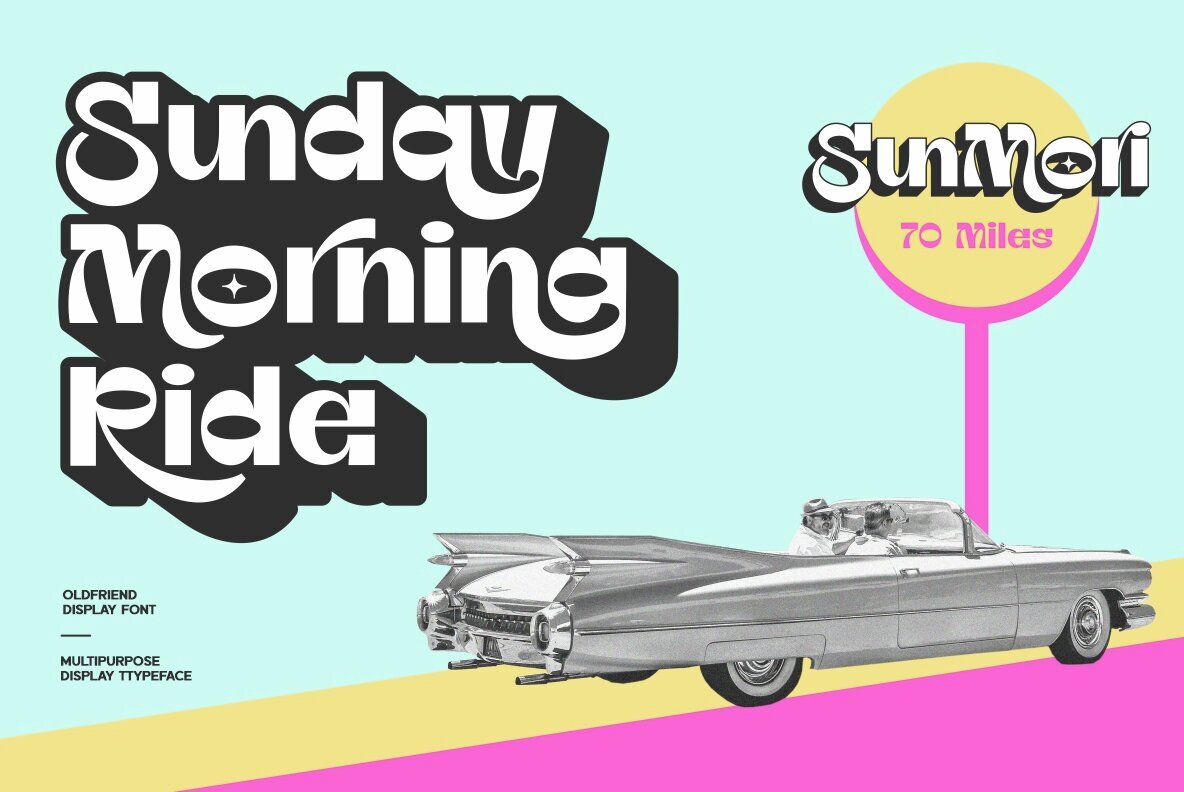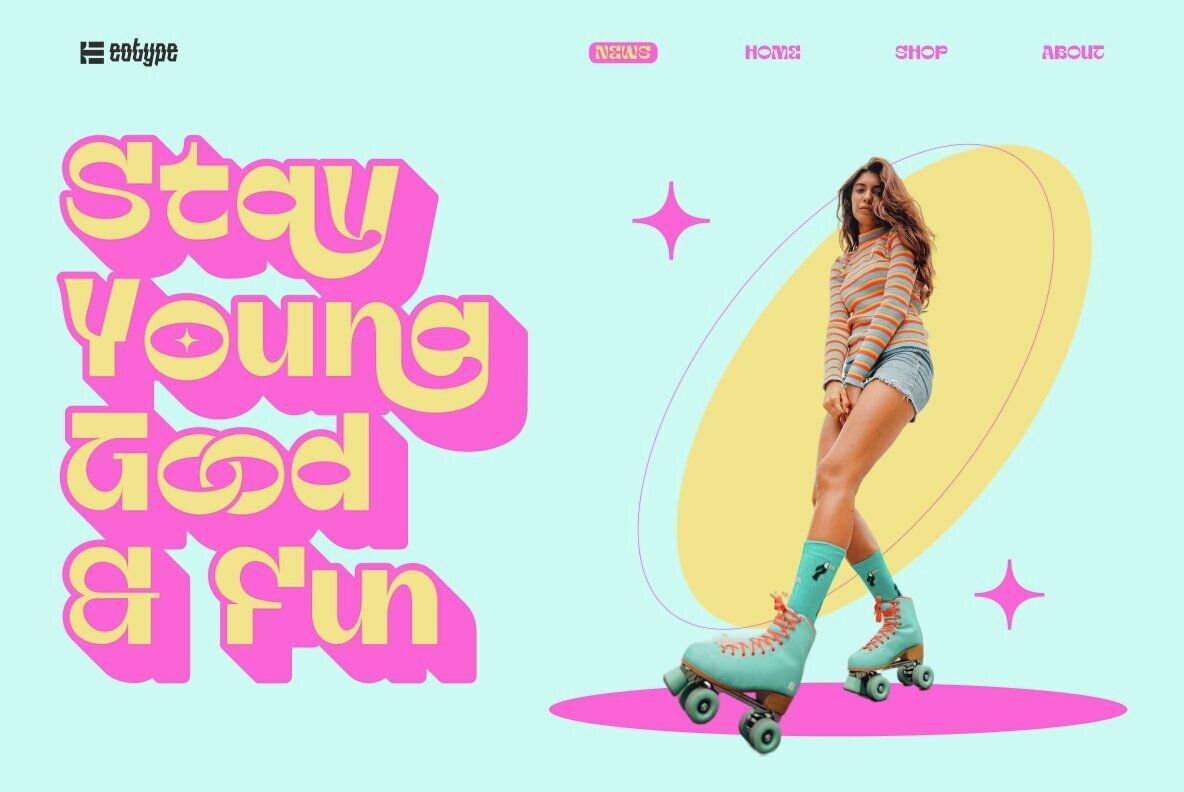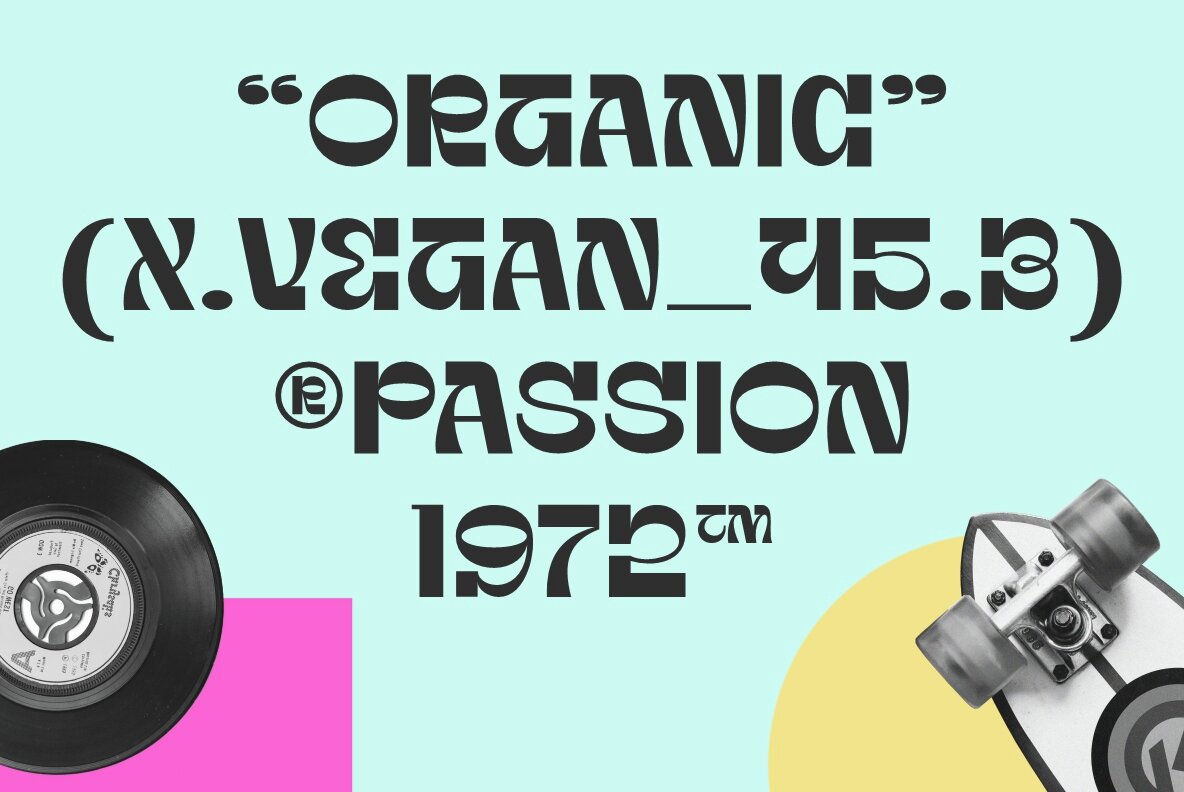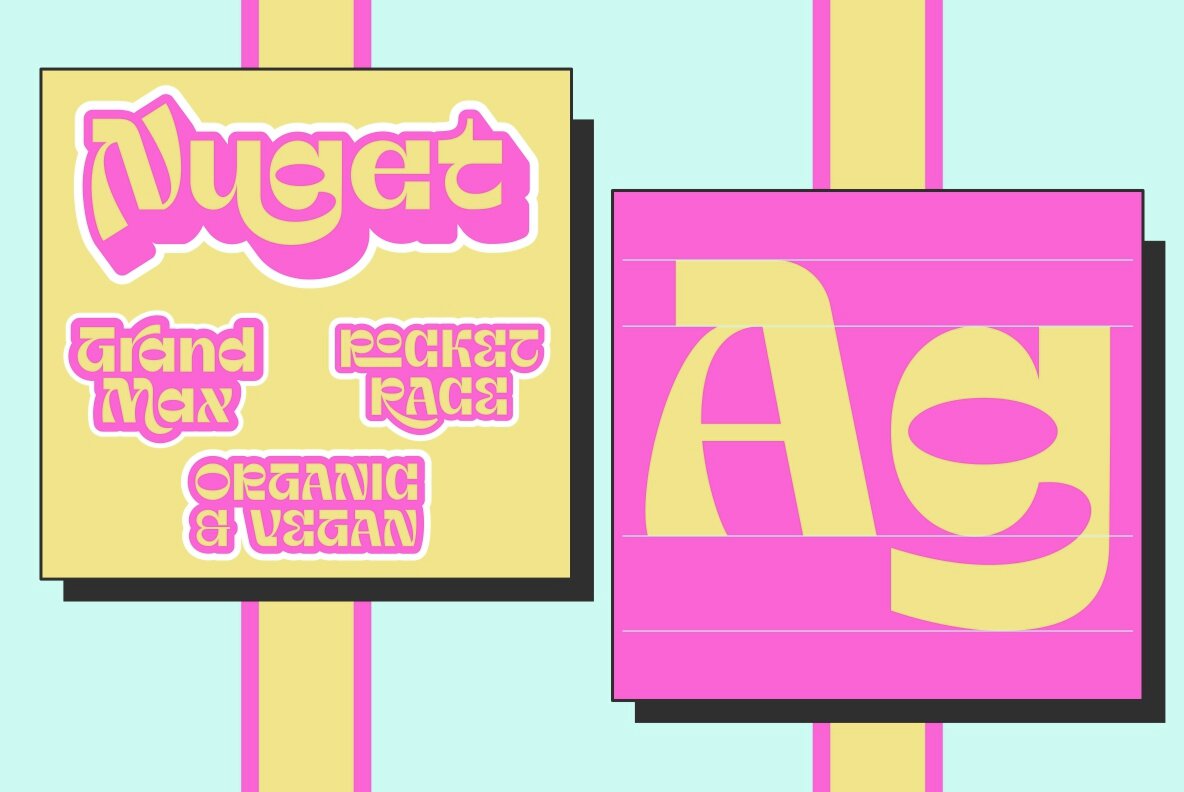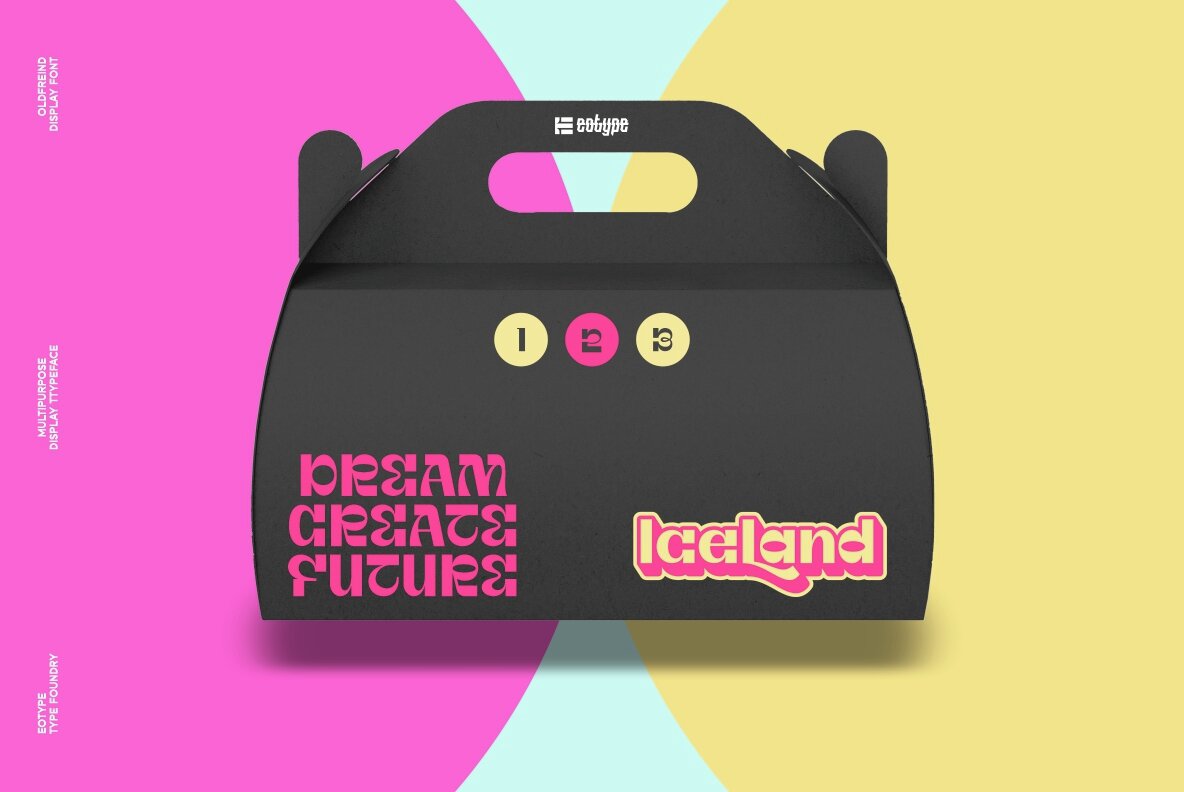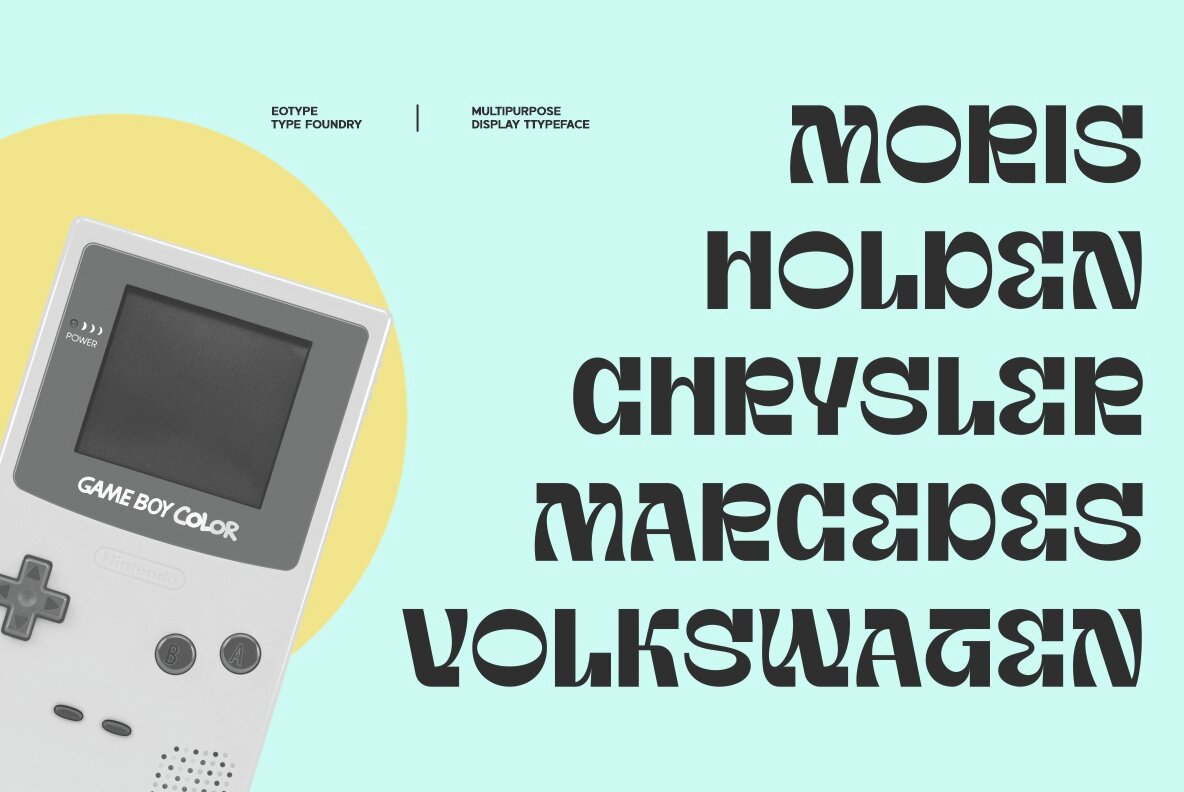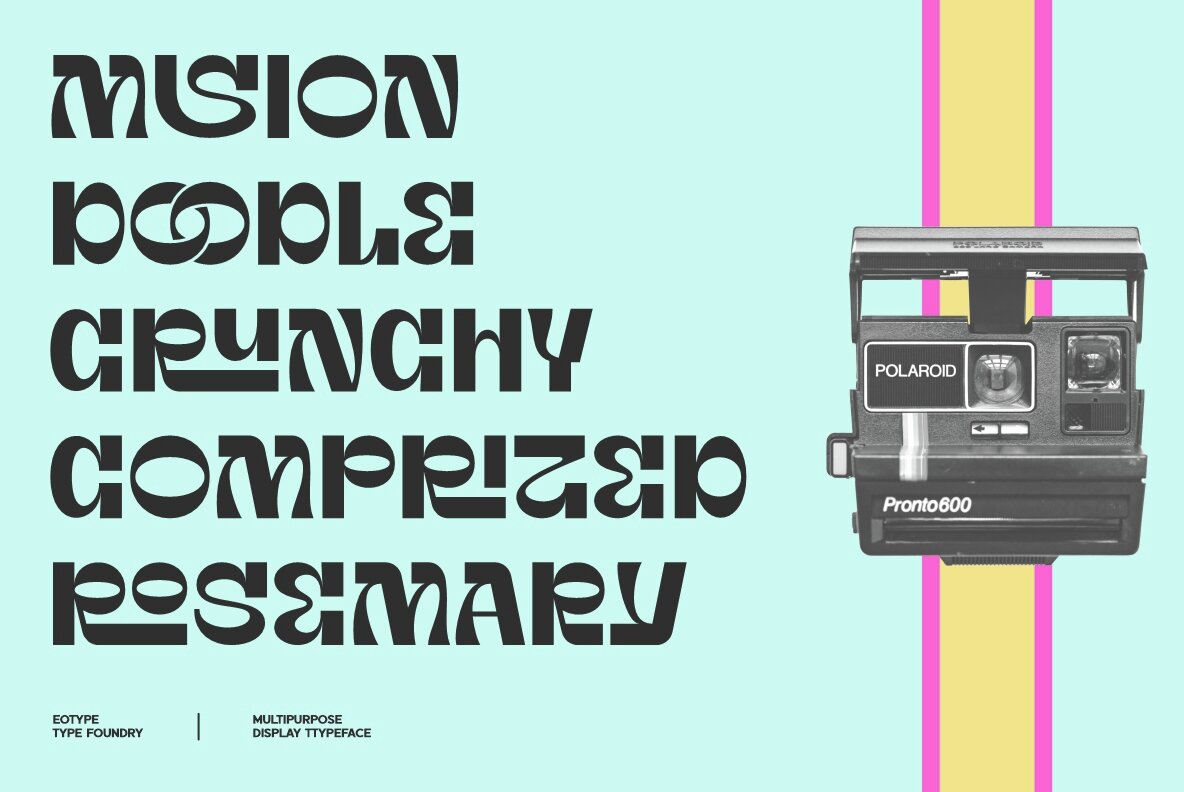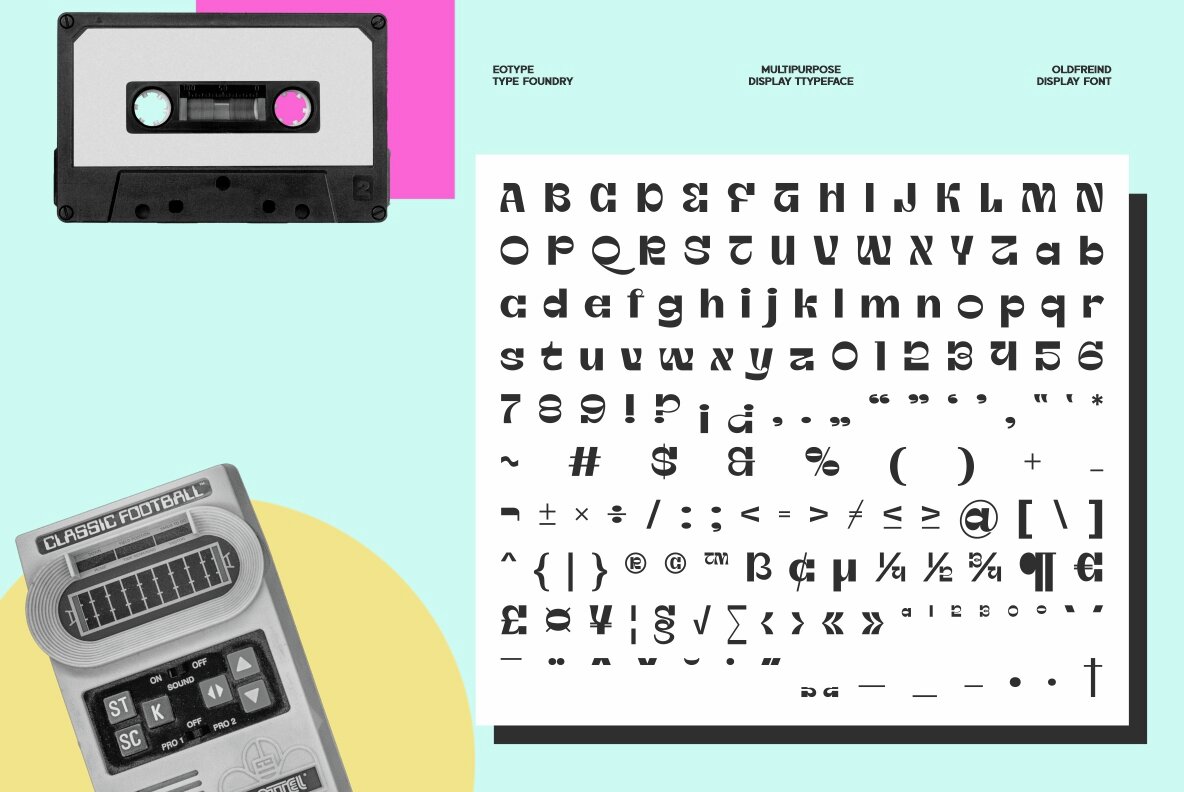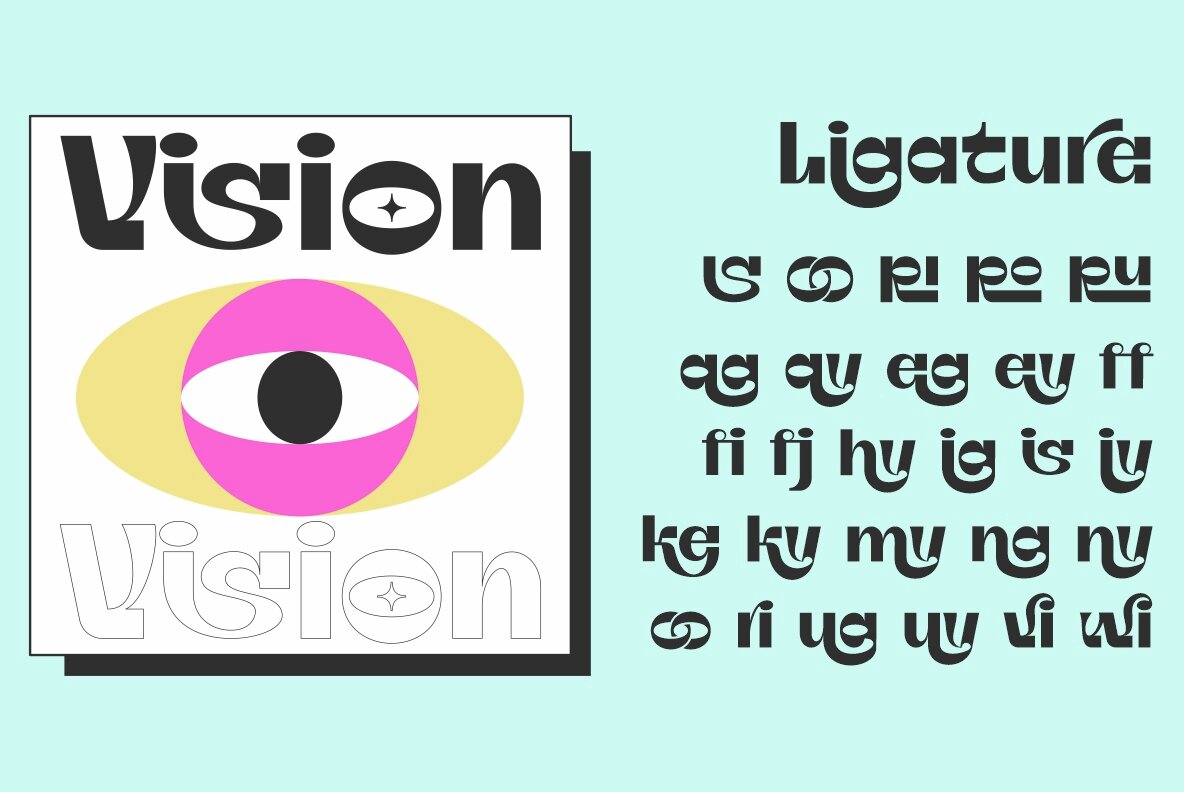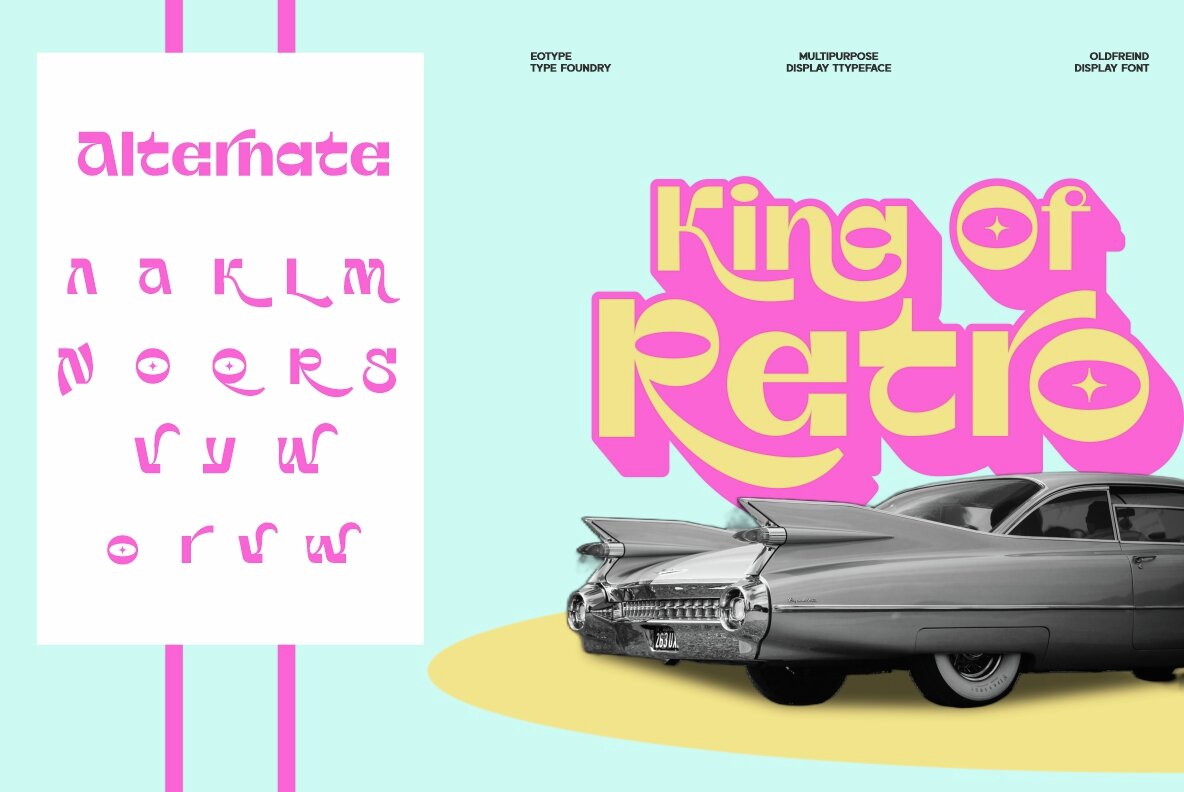
OldFriend is multipurpose and unique display font. This font can give your designs a playful and friendly impression. You can use this font for retro, vintage and urban designs.
This font comes with alternative style and ligature features which are suitable for various projects such as logos, product labels, posters and many more.